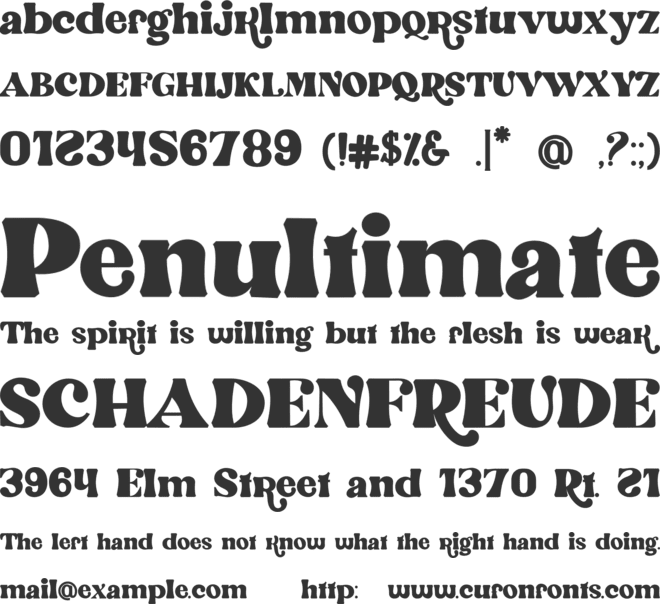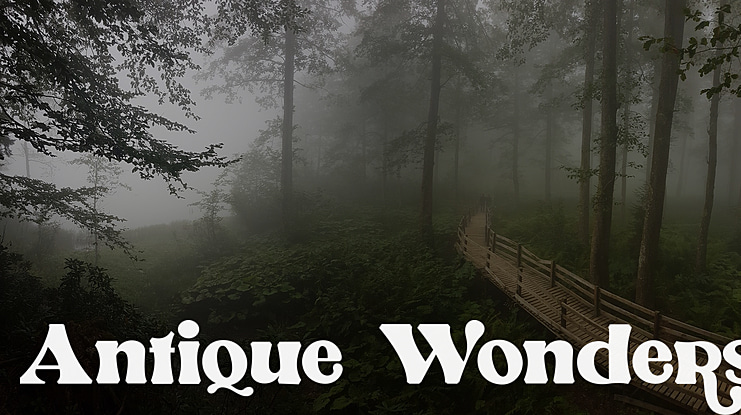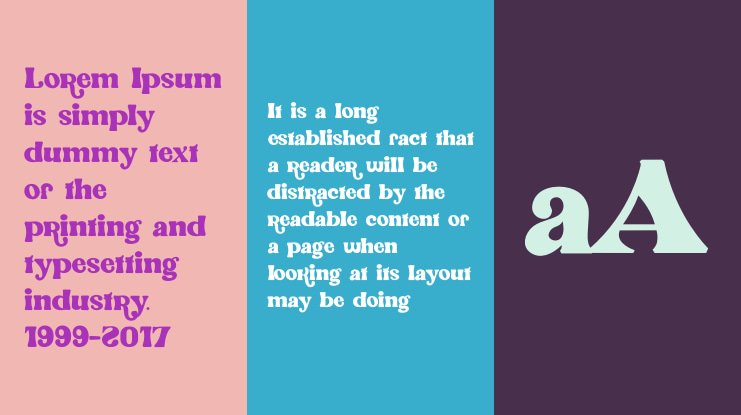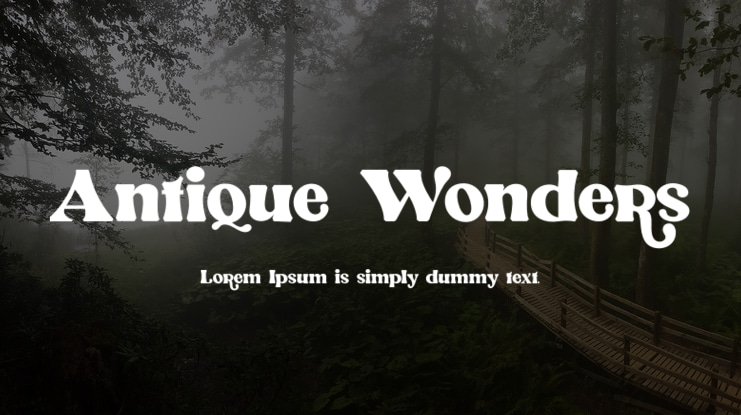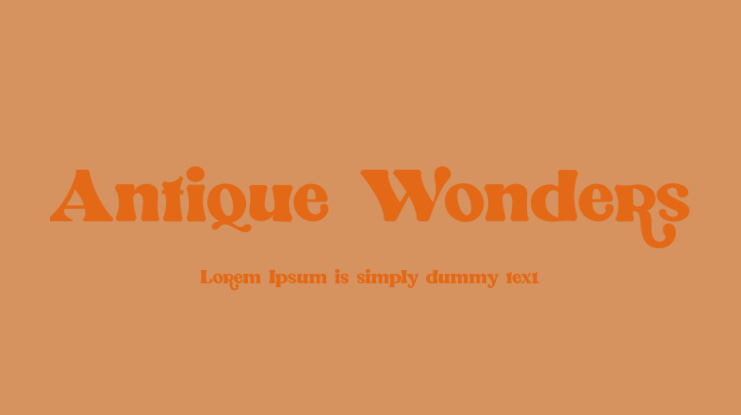
Antique Wonders Font
Antique Wonders is a stylish serif font that is both classy and bold font. Fall in love with its incredibly versatile style and use it to create gorgeous wedding invitations, beautiful stationary art, eye-catching social media posts, nostalgic moodboards, magazine, brochure, brand logo, modern fashion theme, etc. Full Version Download Here :